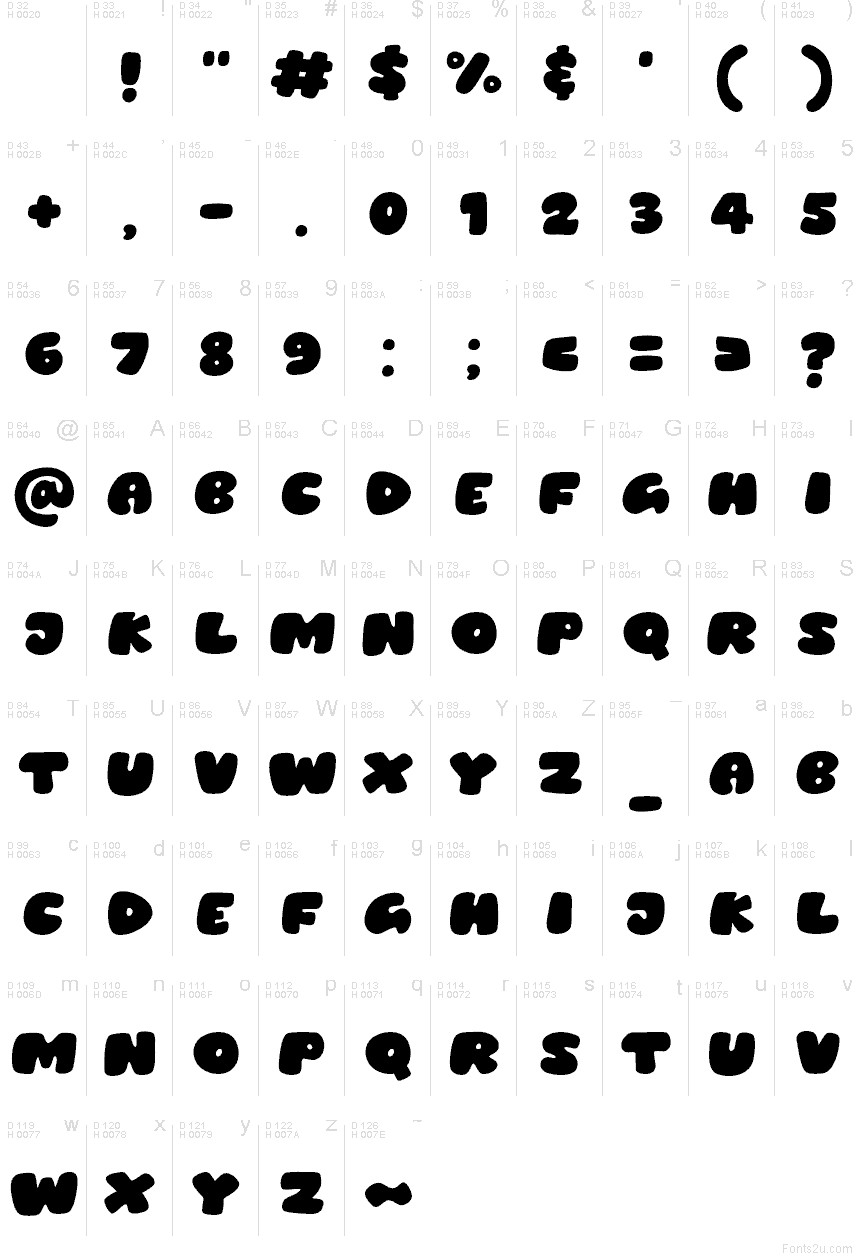
Cashing by Origin Type is a free cartoon display font with big, blobby caps and a soft, inflated feel. The letters look poured rather than drawn, with heavy rounded shapes, pinched joins, and loose, playful cut-ins that give the font a goofy, hand-molded rhythm.
It suits candy branding, snack packaging, kids' event posters, comic title cards, and loud social graphics where a free font needs to feel bold without turning sharp or aggressive. Use it for short headlines, cover lines, or monograms when you want the letters to read like puffy shapes first and text second.